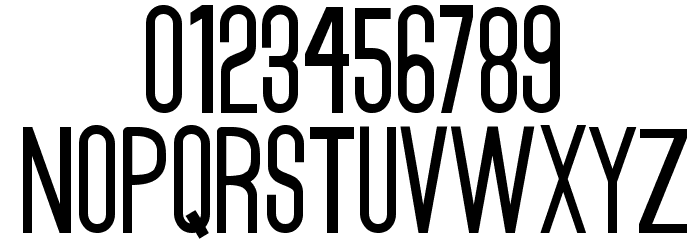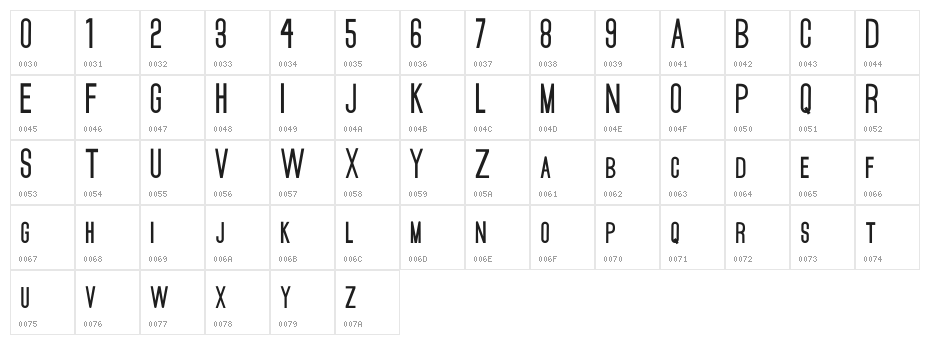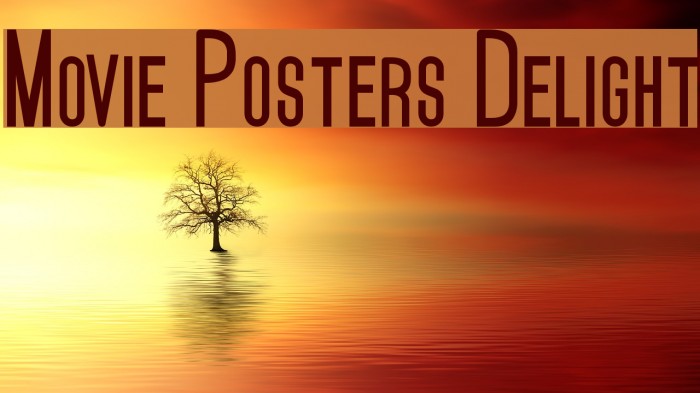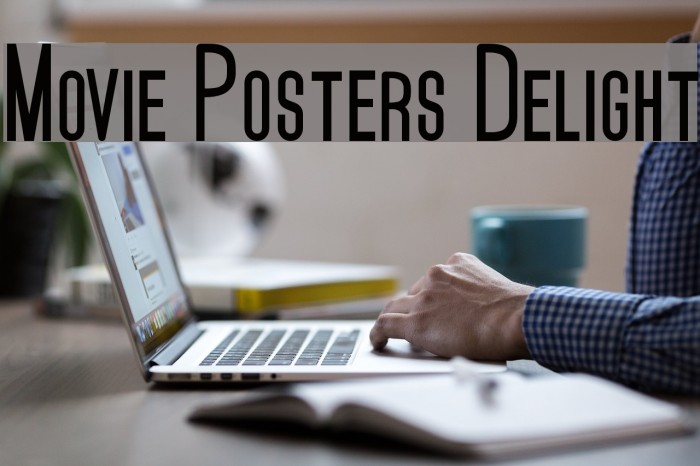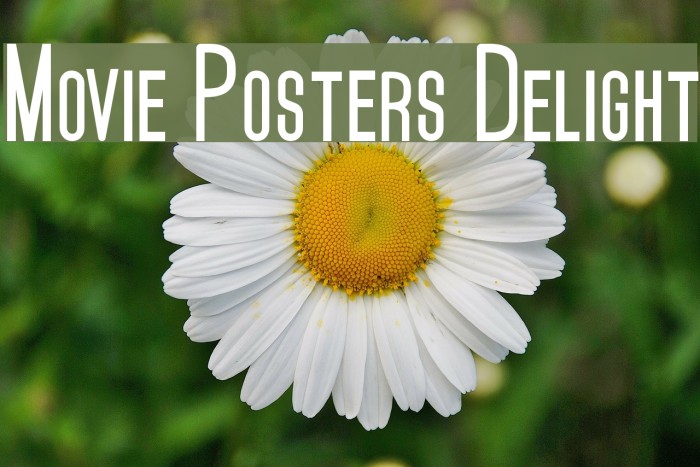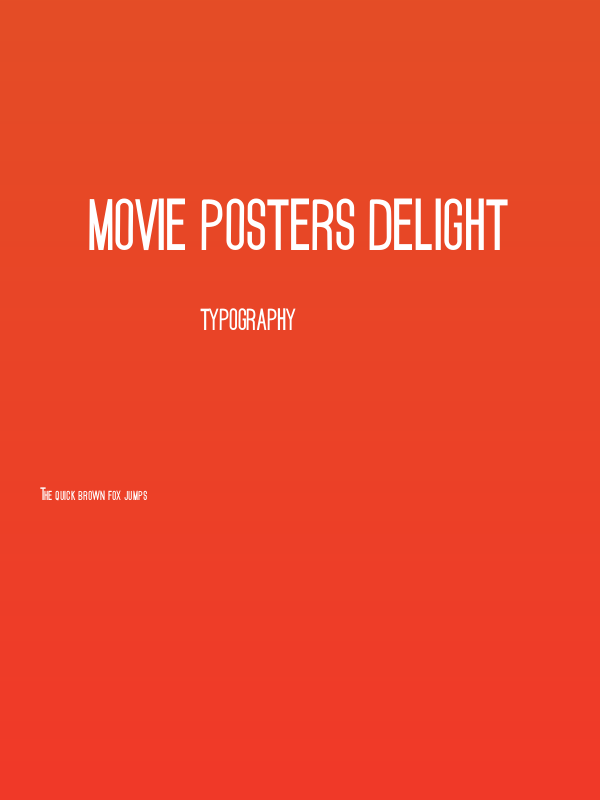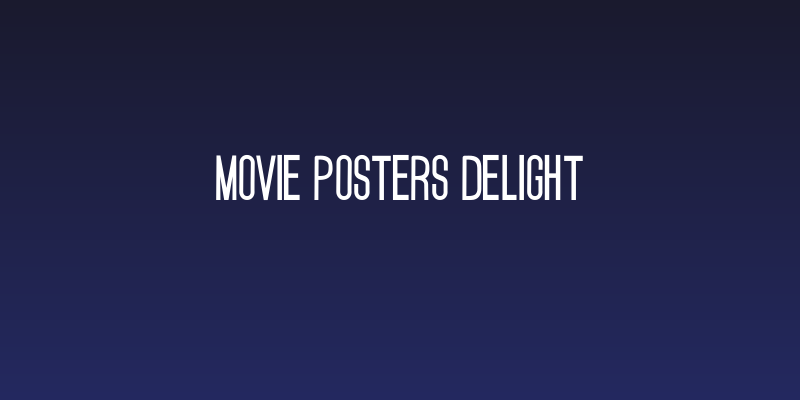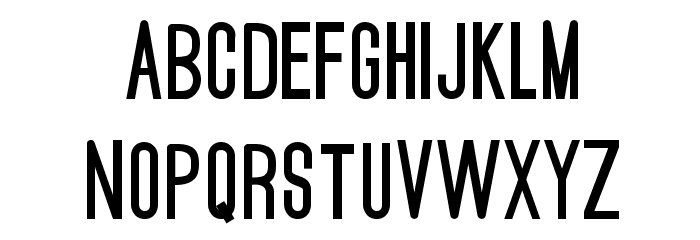
Movie Posters Delight Font
Movie Posters Delight Description
This font features a bold and striking design with tall, narrow letters that exude a sense of modernity and sophistication. The uppercase letters are particularly elongated, giving them a commanding presence, while the lowercase letters maintain a consistent style that complements the overall aesthetic. The numerals are clear and legible, matching the height and style of the letters. This font is ideal for creating impactful headlines and titles, especially in contexts where a strong visual impression is desired. The clean lines and uniform stroke width contribute to its contemporary appeal, making it suitable for a variety of design projects.
| Proposed Projects | Ideal for movie posters, advertising campaigns, branding projects, and editorial design. |